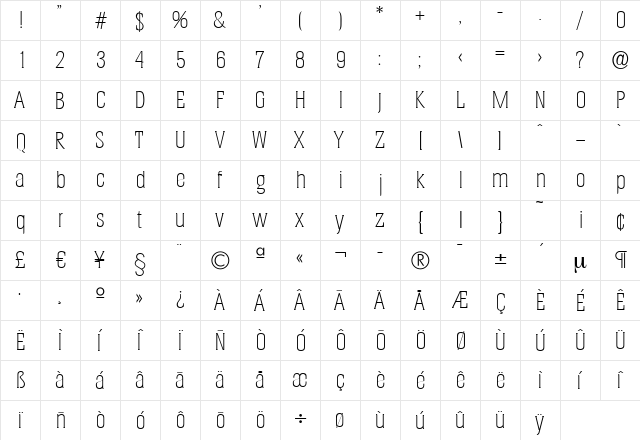
JeremyBecker-ExtraLight Regular
Design Context for JeremyBecker-ExtraLight Typeface
JeremyBecker-ExtraLight is a composed and adaptable typeface that performs quietly and consistently across a wide range of design contexts. The delicate stroke weight brings airiness and refinement to layouts.